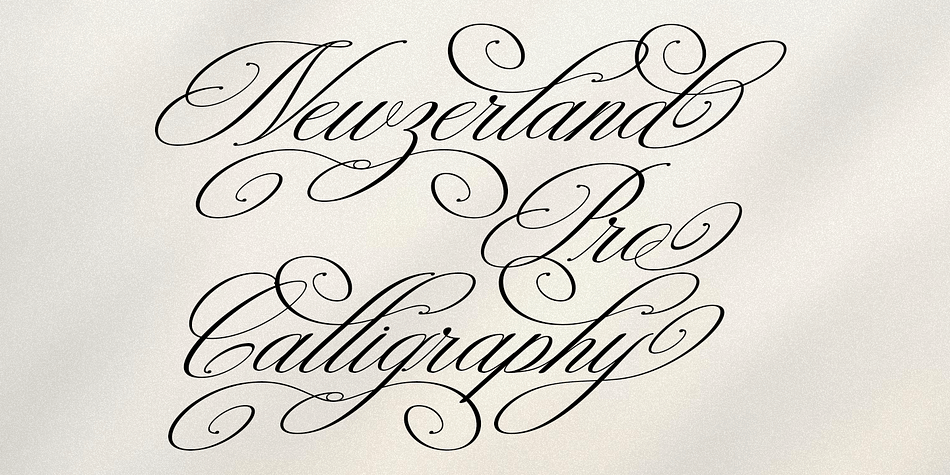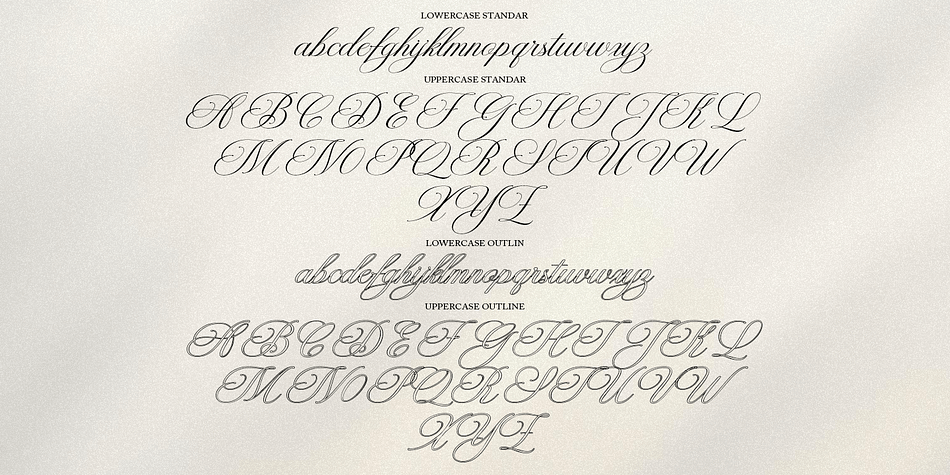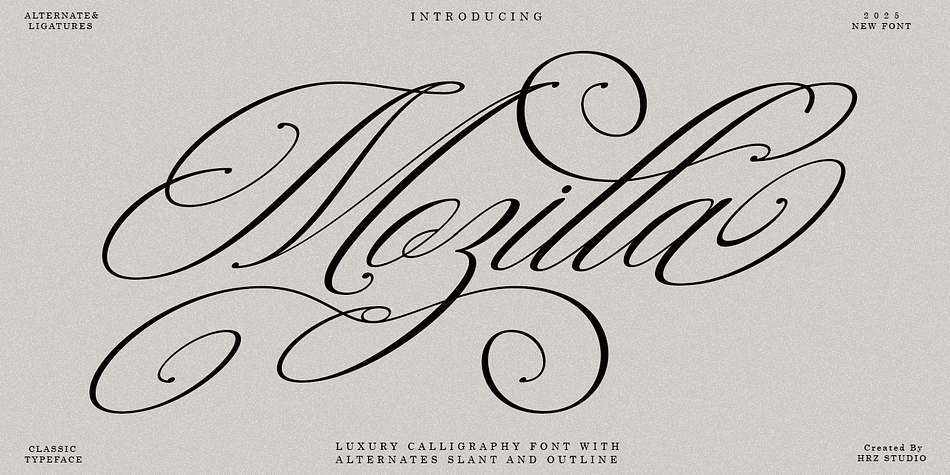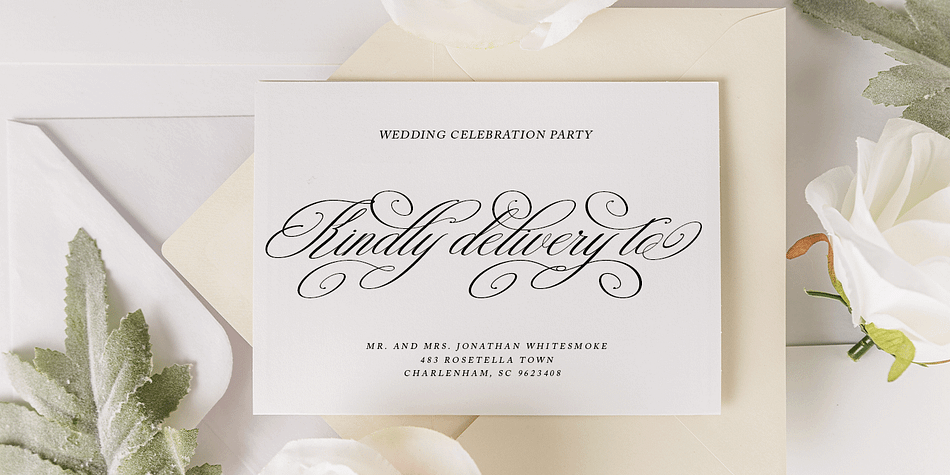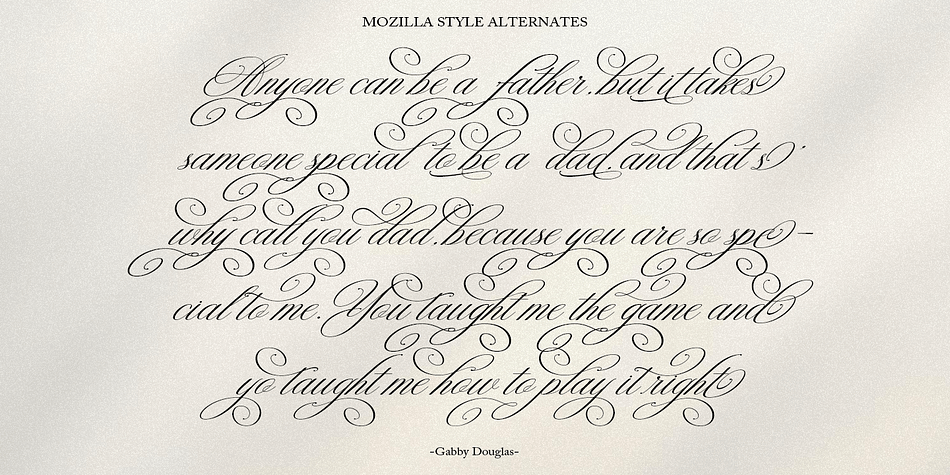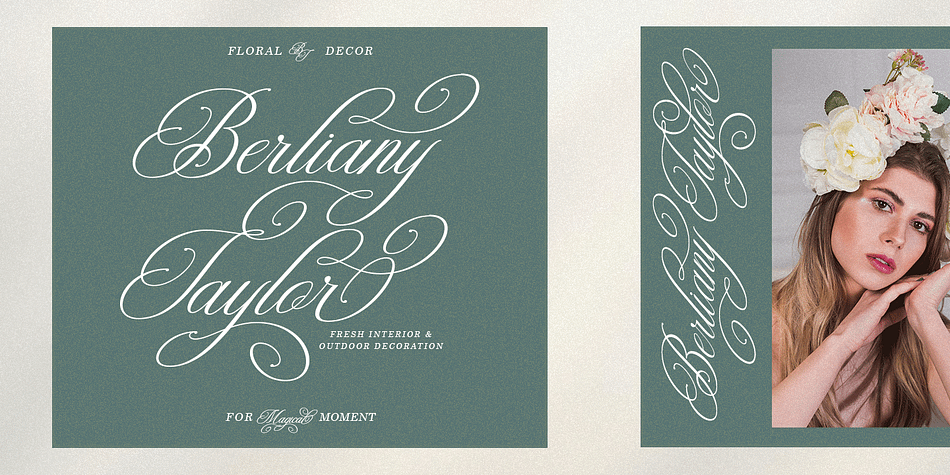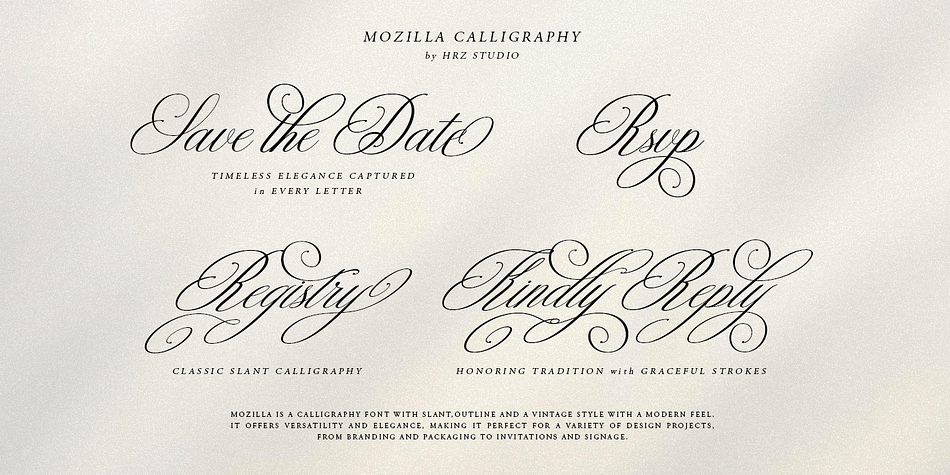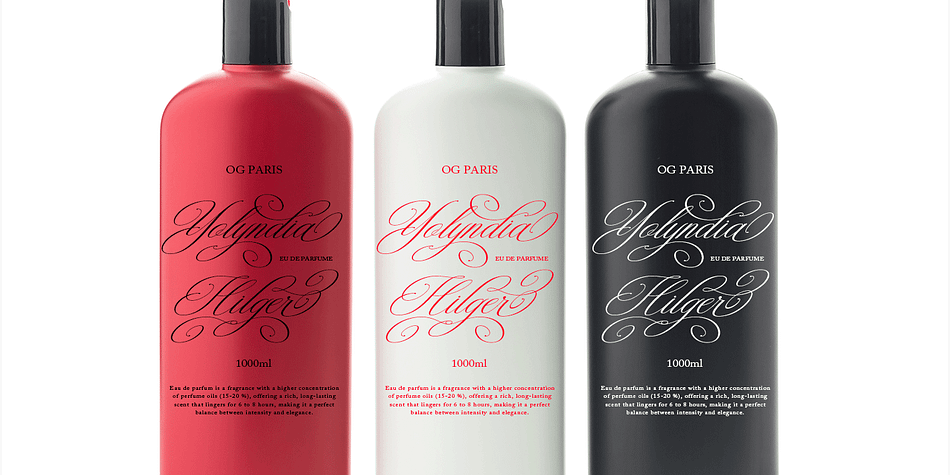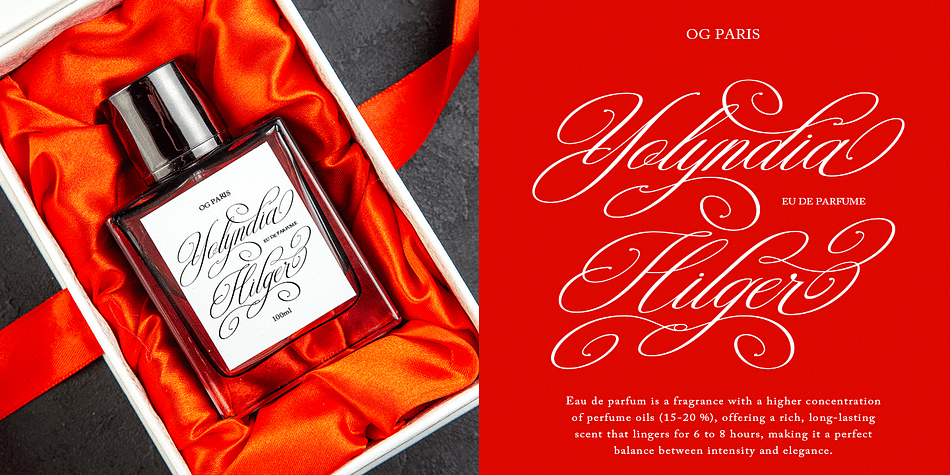
Mozilla
Mozilla is a script font family. This typeface has four styles and was published by HRZ Studio.
Mozilla Script is a calligraphy font that comes with very beautiful changing characters, a type of classic decorative copper script with a modern touch, designed with high detail to convey stylish elegance. Mozilla Script calligraphy is attractive because the typeface is smooth, clean, feminine, sensual, glamorous, simple and very easy to read, due to the many fancy letter connections. I also offer a number of viable style alternatives for many letters. The classic style is very suitable to be applied in various formal forms such as invitations, labels, restaurant menus, logos, fashion, make up, stationery, novels, magazines, books, greeting/wedding cards, packaging, labels or all kinds of advertising purposes. .